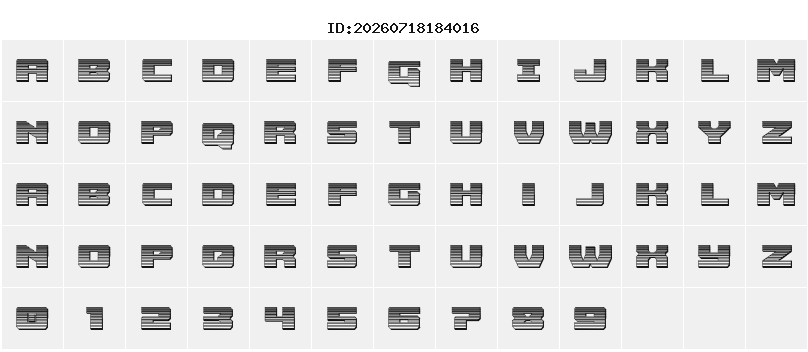
• Font Name: Cruiser Fortress Chrome
Cruiser Fortress Chrome.ttf is a modern, elegant sans-serif font designed for ultimate readability and visual harmony. Perfect for branding, headlines, web design, and print materials.